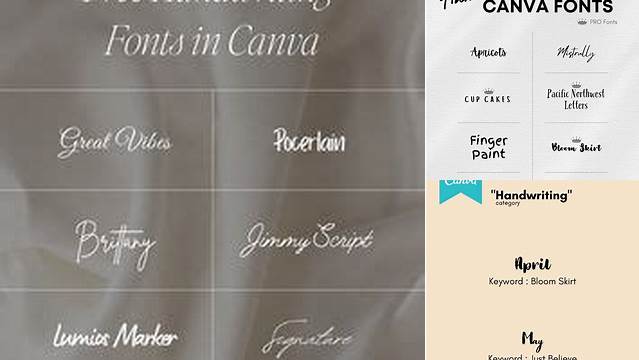
Handwriting Fonts On Canva Pro: A Complete Guide
Unleashing Creativity with Canva Pro Handwriting Fonts
Hey guys! Ever scrolled through stunning designs online and wondered, "How did they get that cool, custom handwriting look?" Well, a big part of that secret often lies in using handwriting fonts, especially when you've got the power of Canva Pro. It’s not just about slapping text on an image; it’s about conveying personality, adding a personal touch, and making your brand or project instantly recognizable. Canva Pro really steps up its game when it comes to fonts, and their selection of handwriting styles is seriously impressive. We're talking everything from elegant script fonts that look like they came from a calligraphy pen, to more casual, quirky scribbles that add a touch of playful charm. Imagine designing a wedding invitation that feels intimate and bespoke, or crafting social media graphics that scream unique personality – that’s the magic handwriting fonts bring, and Canva Pro gives you the keys to unlock it. They’ve curated a collection that caters to a wide array of aesthetics, meaning whatever vibe you’re going for, there's a handwriting font waiting to bring your vision to life. It’s like having a whole library of custom lettering at your fingertips, without needing to be a master calligrapher yourself. This guide is all about diving deep into how you can leverage these amazing fonts within Canva Pro to elevate your design game. So, buckle up, and let’s explore the world of beautiful, expressive typography!
Discovering the Best Handwriting Fonts in Canva Pro
Alright, so you're probably wondering, where do you even find these gems within Canva Pro? It’s super straightforward, guys! When you're in the editor and click on any text box, you'll see the font dropdown menu. Just type "handwriting" or browse through the script and handwritten categories. Canva Pro has a massive library, and the variety is honestly mind-blowing. You’ve got your classic, elegant scripts like Great Vibes or Dancing Script, which are perfect for formal invitations, branding, or adding a touch of sophistication. Then there are the more casual, everyday handwriting fonts – think Pacifico or Lobster – which give off a friendly, approachable feel, ideal for blogs, social media posts, or personal projects. For those wanting something a bit more unique, there are fonts that mimic brush lettering or even more playful, uneven scribbles. The key here is experimentation. Don't just stick to the first one you see! Click through, preview how they look with your text, and see which one best captures the mood you're aiming for. Canva Pro often highlights new additions, so keep an eye out for fresh handwriting styles. It’s also worth noting that while Canva’s free version has a decent selection, Pro unlocks a much broader range of premium, unique handwriting fonts that really stand out from the crowd. These premium fonts often have more ligatures (those cool connected letters!), stylistic alternates, and a generally higher level of polish. So, if you’re serious about making your designs pop with authentic-looking script, upgrading to Pro is definitely the way to go. We’re going to explore how to pair these fonts effectively later, but for now, the main takeaway is that Canva Pro’s library is your oyster when it comes to beautiful handwriting typography.
How to Effectively Use Handwriting Fonts in Your Designs with Canva Pro
Now that you know where to find them, let's talk about how to use these gorgeous handwriting fonts in Canva Pro like a total pro, guys. The biggest mistake people make is going overboard. Remember, handwriting fonts are powerful tools for adding personality, but too much can make your design look cluttered or hard to read. A great strategy is to use them as accent text. Think headings, subheadings, call-to-action buttons, or maybe a single featured quote. For the bulk of your text (like body paragraphs or longer descriptions), opt for a clean, sans-serif or serif font that’s easy on the eyes. This contrast is key! It makes your handwriting element really pop and ensures readability. Another tip? Pay attention to the weight and style of the font. Some scripts are thin and delicate, perfect for elegant branding, while others are bold and chunky, great for making a statement. Consider the overall mood of your design. A formal event? Go for a classic script. A fun, casual blog post? A more playful, handwritten style might be better. Canva Pro makes it easy to adjust letter spacing (kerning) and line spacing (leading), which is crucial for scripts. Sometimes, letters can overlap awkwardly, or lines can feel too cramped. Tweaking these settings can make a huge difference in readability and visual appeal. Don’t be afraid to experiment with color too! A pop of color in a handwritten heading can add energy, while a subtle tone can maintain sophistication. Always preview your design on different devices if possible, as font rendering can vary. The goal is to make your handwriting font element enhance the message, not overpower it. It should feel intentional and add a unique, human touch to your otherwise polished design. It’s about finding that sweet spot where personality meets clarity, and Canva Pro gives you all the tools to nail it.
Applying Handwritten Script Fonts for a Personal Touch
When you want your design to feel genuinely you, guys, nothing beats a good handwritten script font. In Canva Pro, these are your secret weapons for adding that deeply personal, human element that resonates with audiences. Think about creating a thank-you card, a personalized digital invitation, or even a quote graphic for your personal blog. Using a script font here isn't just about aesthetics; it’s about conveying warmth, sincerity, and a direct connection. Imagine receiving a beautifully designed card with a message in elegant script – it immediately feels more special, right? That’s the power we're tapping into. Canva Pro offers a plethora of script fonts, ranging from the ultra-formal and flowing, reminiscent of classic calligraphy, to the more relaxed and quirky, like something you'd jot down in a journal. For those really intimate projects, try pairing a sophisticated script like Allura or Adelicia Script with a clean sans-serif font for contrast. The script becomes the star, drawing the eye and adding that crucial touch of elegance, while the sans-serif provides the grounding readability. Don't shy away from using these fonts for key phrases or single words that you want to emphasize. A single beautifully rendered word in a script font can have more impact than a whole sentence. Also, consider the context – a wedding invitation might call for a more traditional, flowing script, whereas a birthday card for a close friend could be perfect for a more playful, bouncy script. Canva Pro’s ability to adjust spacing, size, and even add subtle effects like shadows or outlines can help you fine-tune the look of your handwritten elements. Remember, the goal is to make it look like a deliberate, beautiful addition, not just random text. It’s about crafting a visual narrative that feels authentic and heartfelt, and these fonts are your primary tools for achieving that unique, personal signature in your designs.
Utilizing Casual Handwriting Fonts for Approachability
Let's switch gears, guys, because not all handwriting fonts need to be super formal or elegant. Sometimes, you want your design to feel friendly, approachable, and super casual, right? That’s where the casual handwriting fonts available in Canva Pro shine. These fonts are fantastic for brands that want to project a down-to-earth vibe, bloggers sharing personal stories, or anyone creating content for a younger, more laid-back audience. Think about fonts that look like they were jotted down quickly with a ballpoint pen or a marker – they have a certain charm and authenticity. Examples like Amatic SC, Kalam, or Permanent Marker (though check licensing for commercial use!) give off that effortlessly cool, handwritten feel without being overly stylized. These are perfect for social media captions, Instagram Stories, blog post titles, or even packaging for products that aim for a rustic or handcrafted feel. The beauty of these casual fonts is their versatility. They can be paired with almost anything! Try them with a simple, clean font for a classic contrast, or even mix them with another, slightly different casual font for a more eclectic, scrapbook-like feel. Canva Pro makes it easy to play around with sizing and placement to get that perfect